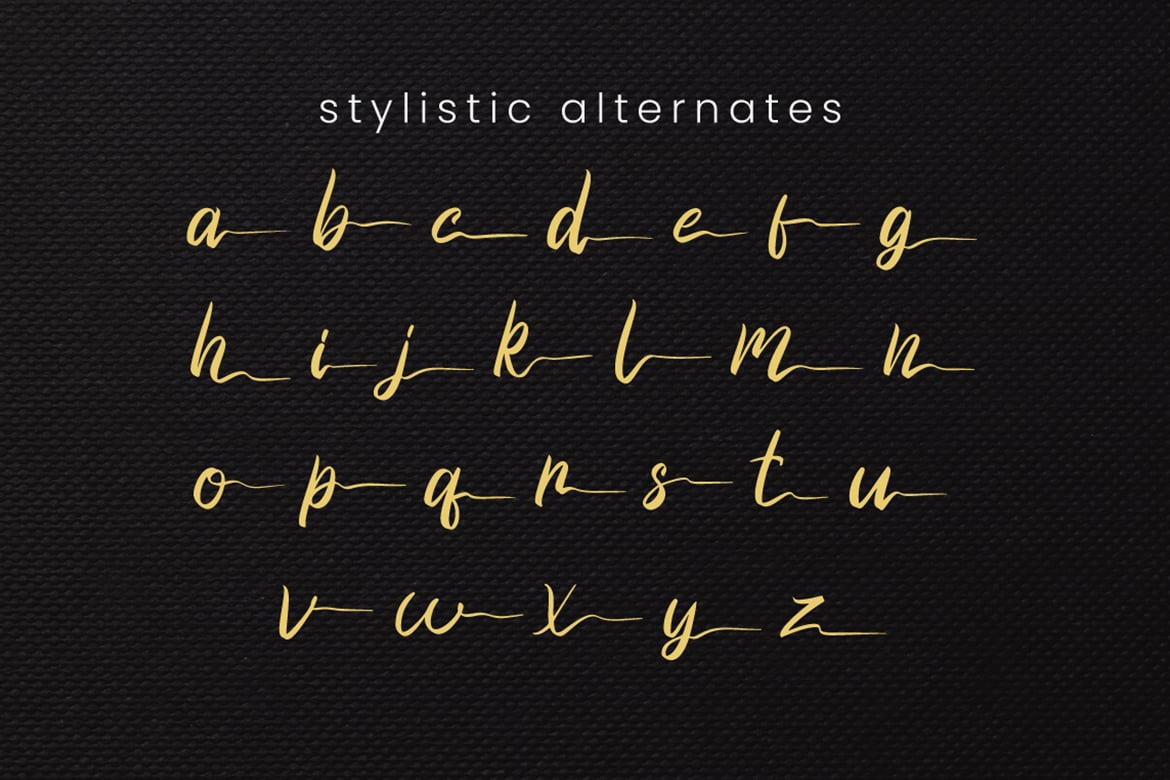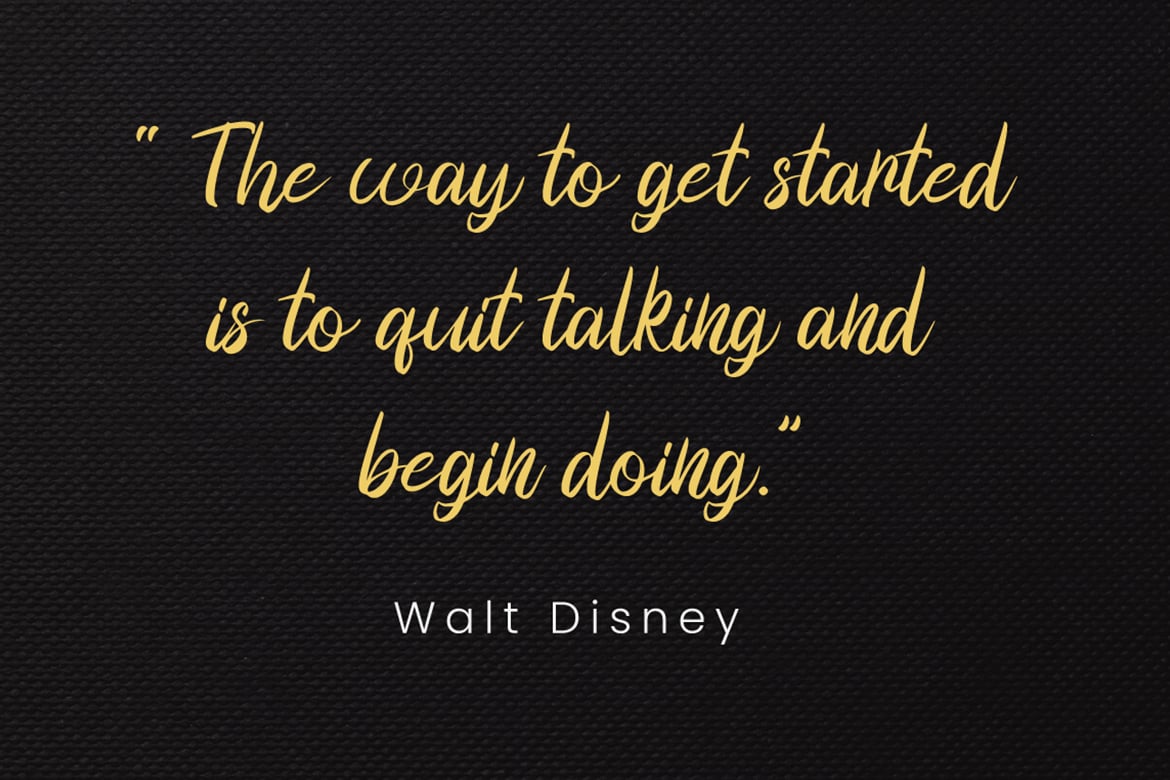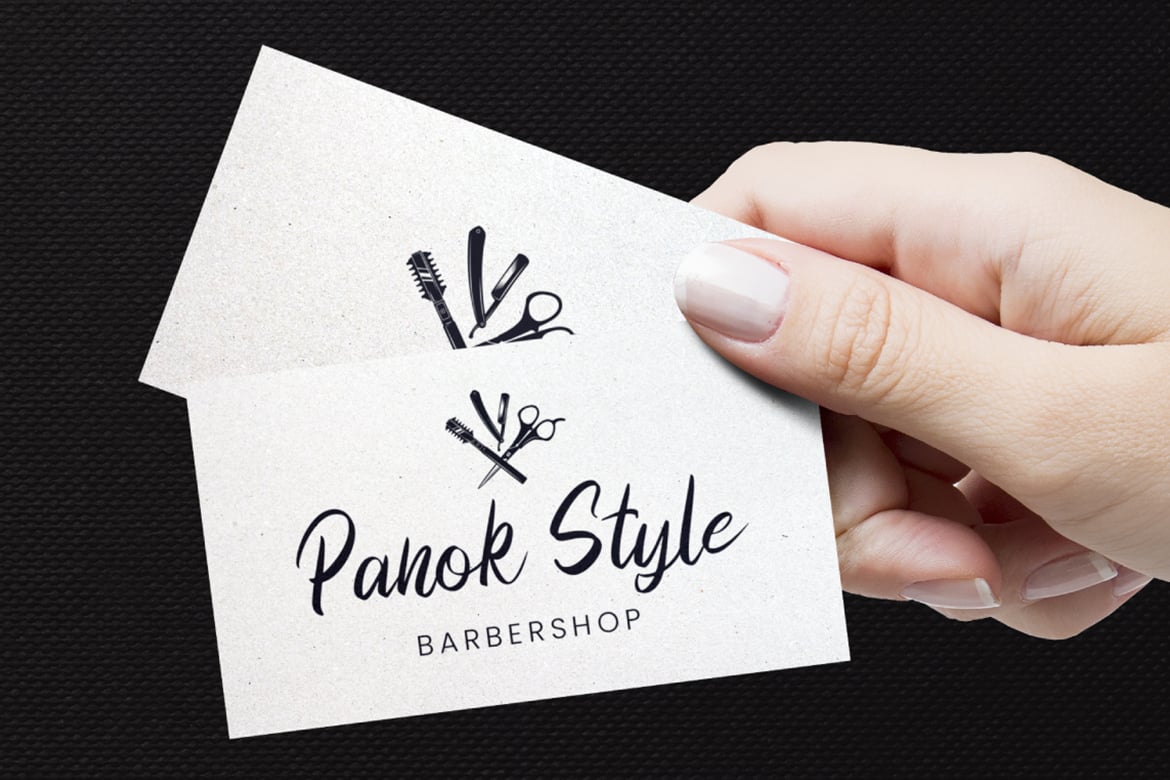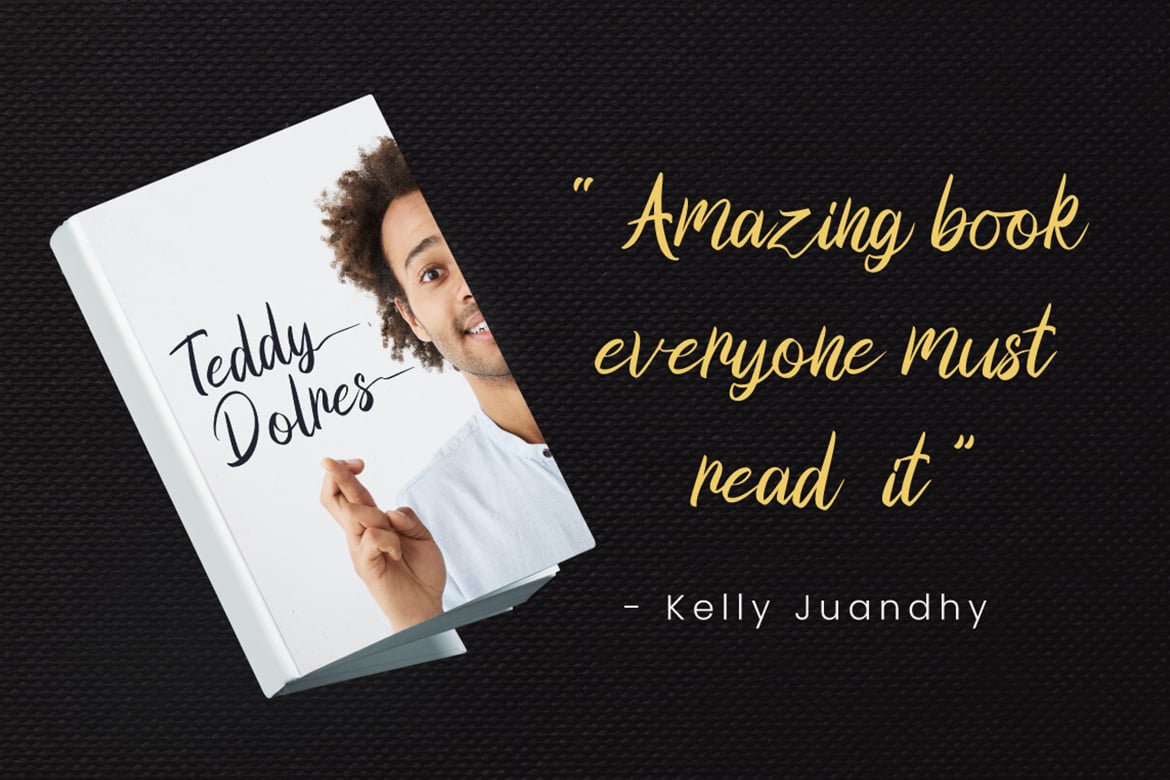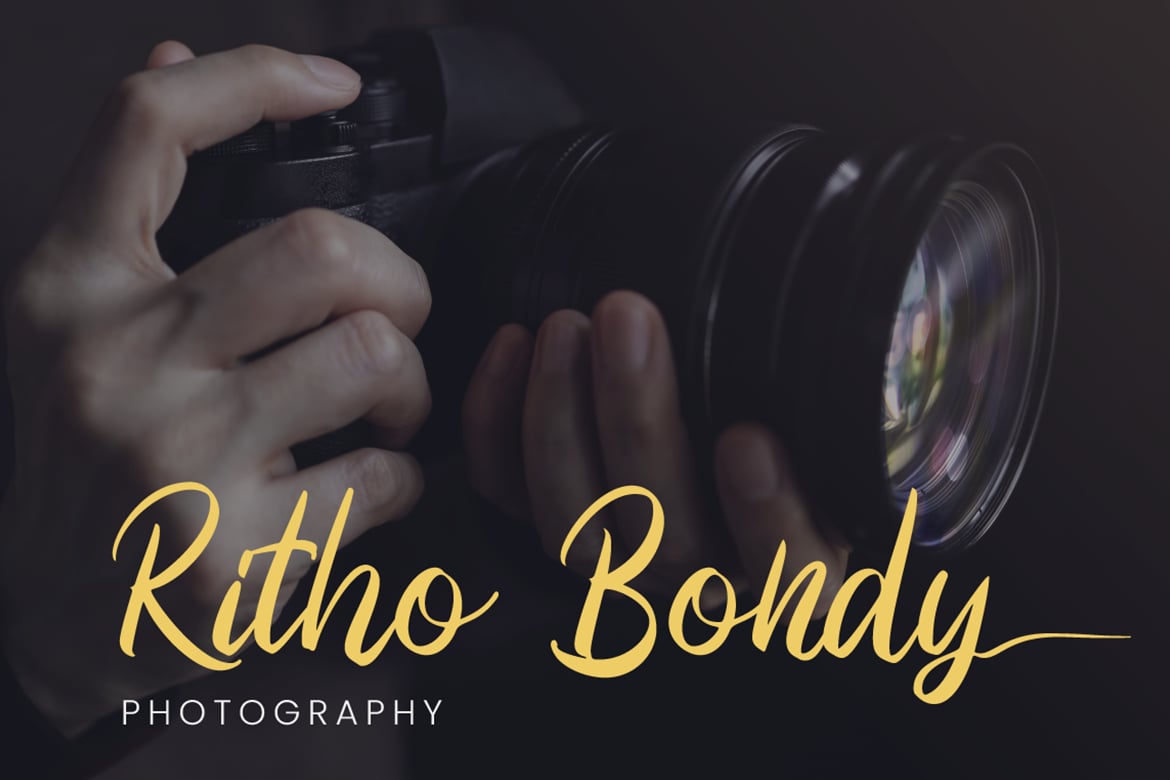
Beagle Sign – Signature Font
Beagle Sign is a stylish signature font with ending stylistic set that make amazing combination.
- ligature
- Ending stylistic set